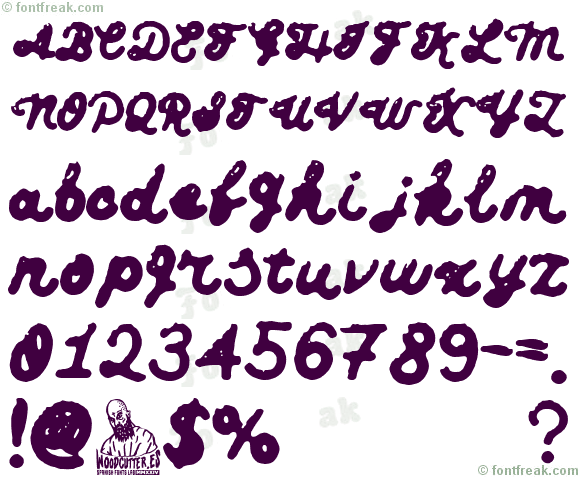
Brooklyn Shop
About Brooklyn Shop
The Brooklyn Shop font, crafted by woodcutter Manero, is a striking display typeface that embodies a unique blend of modern and whimsical elements. This font features a playful, hand-drawn aesthetic, characterized by its irregular shapes and fluid lines. The stroke weight varies throughout the characters, creating an engaging contrast that draws the eye. The letters are generously spaced, allowing for easy readability while maintaining a casual and inviting feel. The decorative elements, including exaggerated curves and rounded edges, give the font a distinct personality that resonates with creativity and charm.
Ideal for a variety of applications, the Brooklyn Shop font excels in settings where a touch of personality is desired. It is particularly suited for restaurant menus, where its inviting style can enhance the dining experience. Additionally, it shines on event posters, such as music festivals or local markets, where it can capture attention and convey a sense of fun. Graphic designers might also find this font perfect for branding projects, especially for small businesses aiming to establish a memorable identity. Wedding invitations can benefit from its whimsical charm, appealing to couples looking for something distinctive and non-traditional.